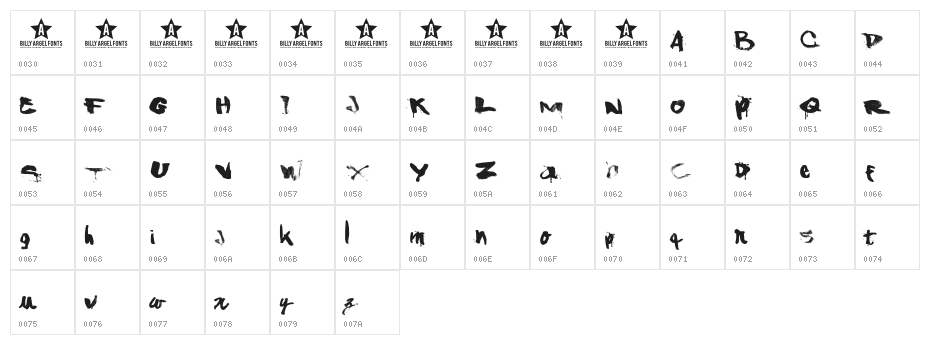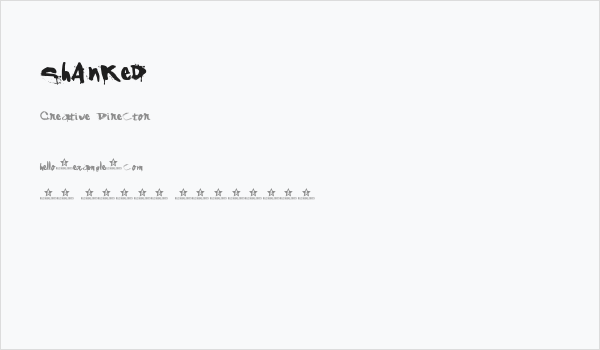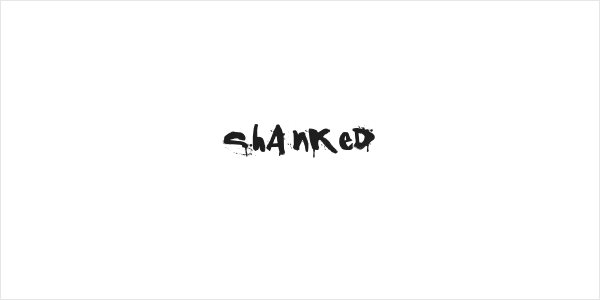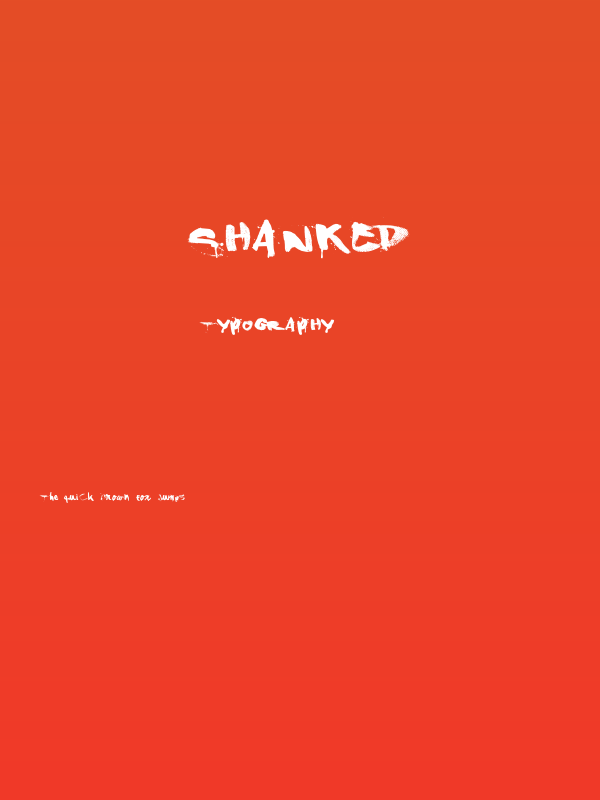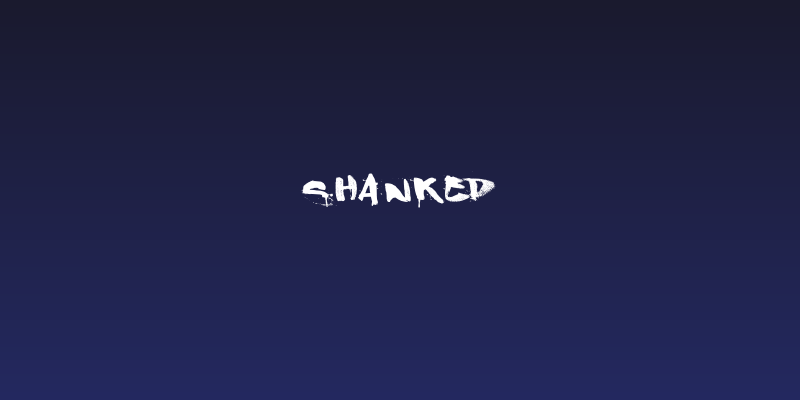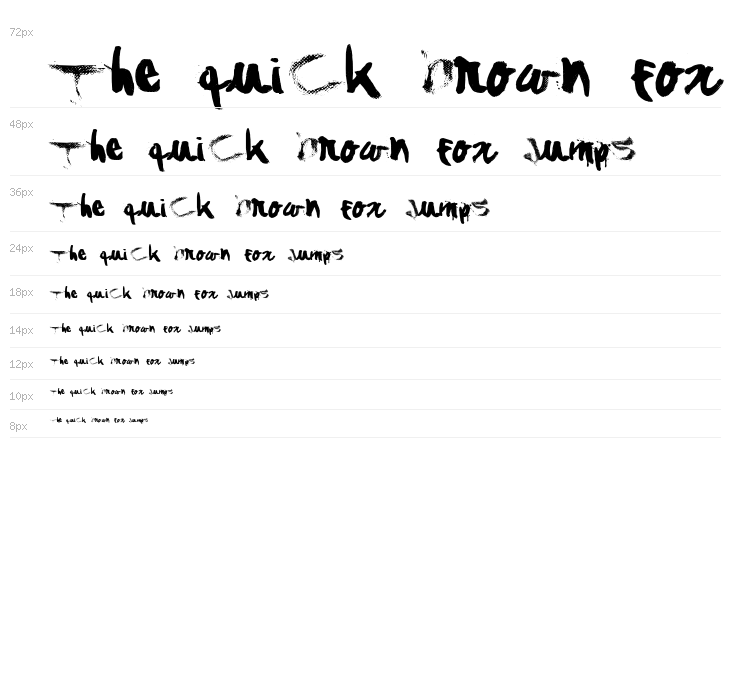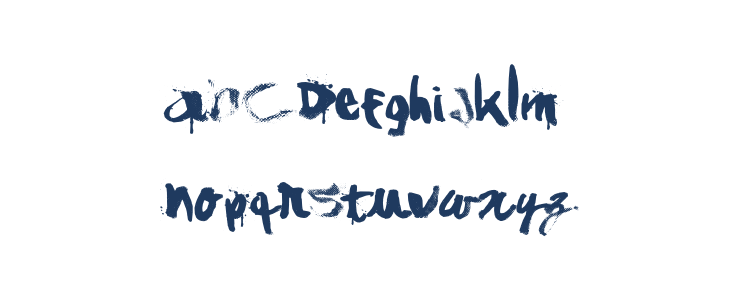
ShAnKed Font
ShAnKed Description
This font features a bold, expressive style with a hand-painted appearance. The characters are irregular and dynamic, with splatters and drips that give it a raw, artistic feel. The uppercase and lowercase letters maintain a consistent energy, while the numbers and special characters complement the overall aesthetic. This font is ideal for projects that require a strong, unconventional visual impact, such as posters, album covers, or street art-inspired designs.
| Proposed Projects | Perfect for posters, album covers, street art designs, and any project needing a bold, artistic touch. |